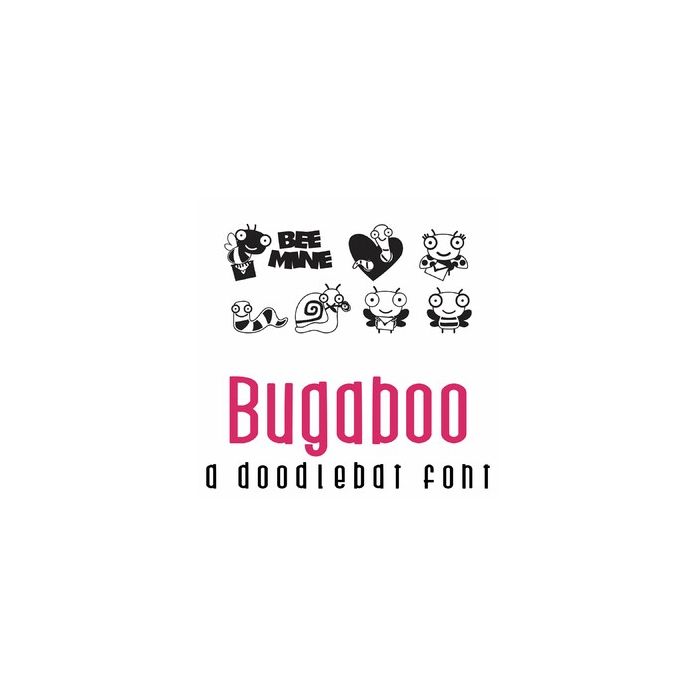
This fun doodlebat font features 26 adorable insects ready for Love. Perfect for cards, crafts, gifts, decor, scrap book pages, planner stickers and more!